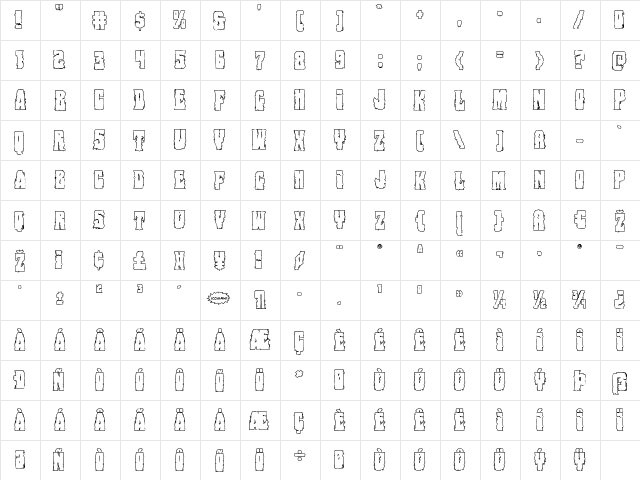
Bog Beast Outline Regular
Design Context for Bog Beast Outline Typeface
Bog Beast Outline is built around its visual character rather than neutral utility — its distinctive forms are designed to make an impression at display sizes.
Font Pairing: Pair with a clean neutral sans-serif for body copy to let Bog Beast Outline's character lead without overwhelming the composition.
Pro Tip: Treat Bog Beast Outline as the centrepiece of your typographic hierarchy. One strong heading set in a decorative face can carry an entire layout.